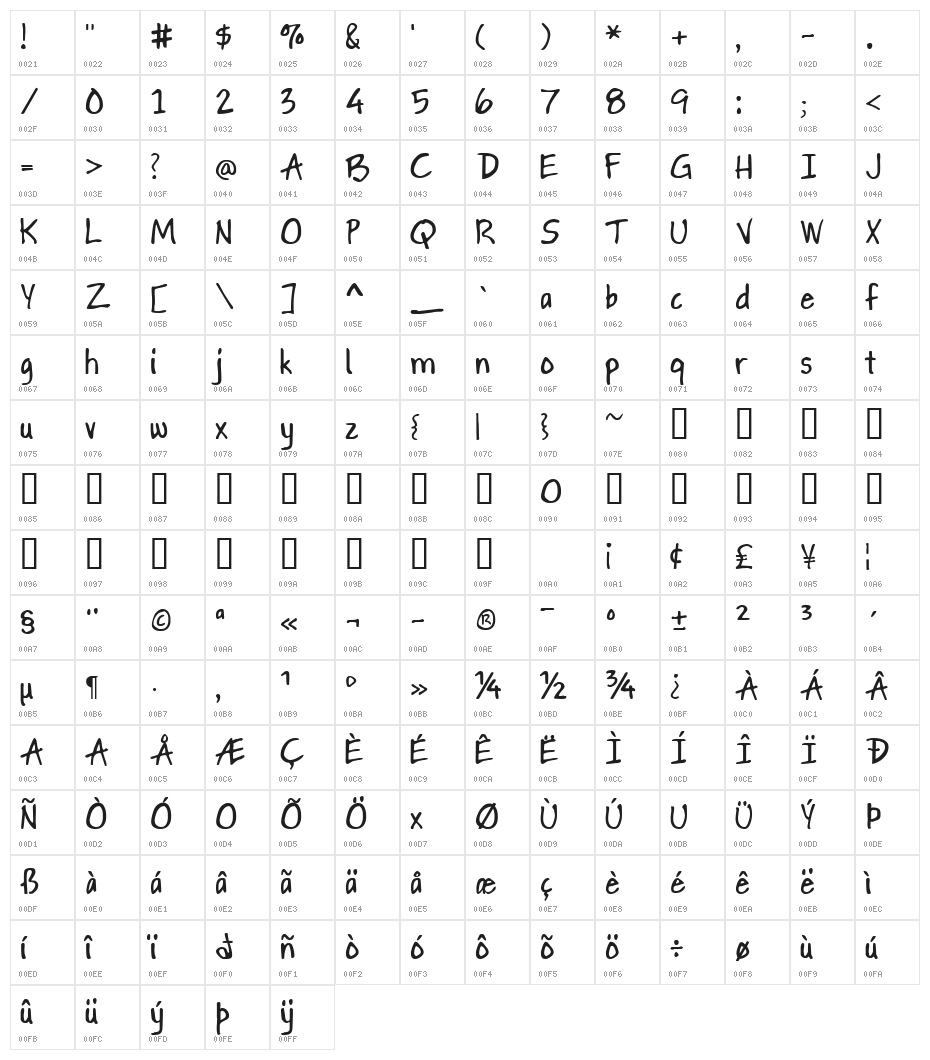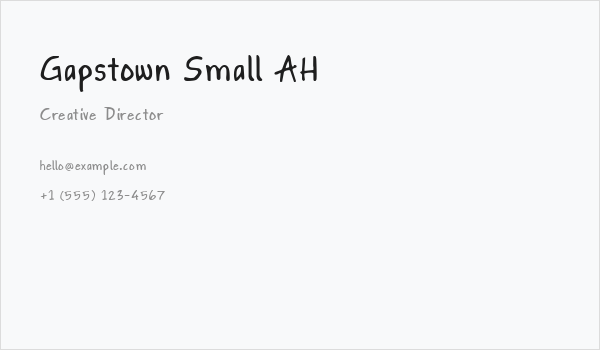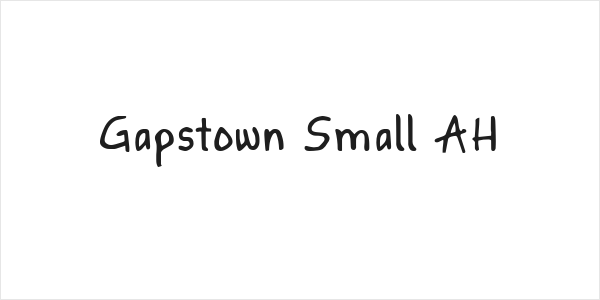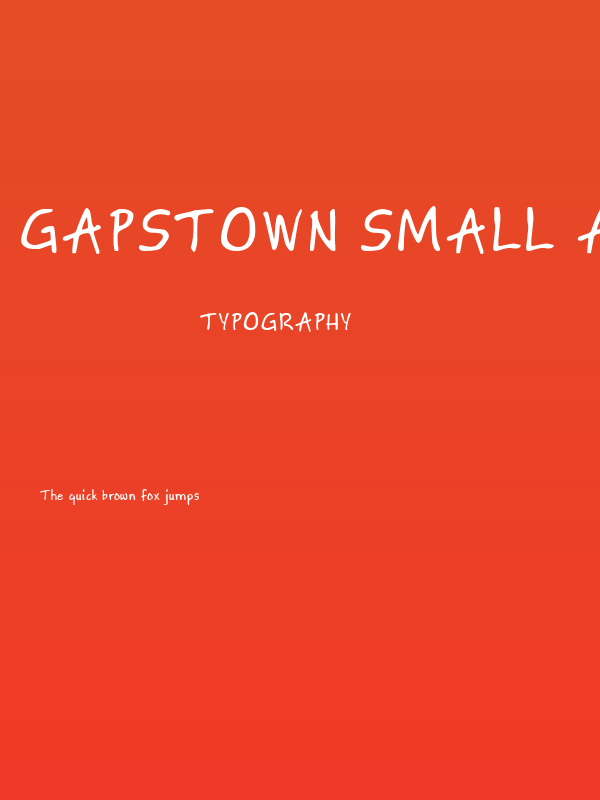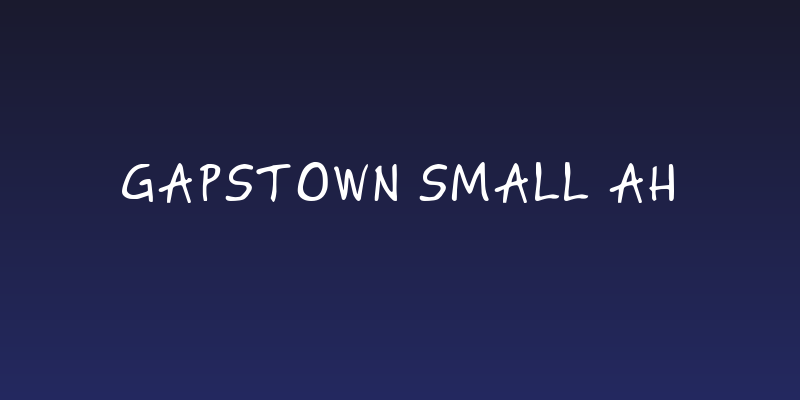
Gapstown Small AH Font
Gapstown Small AH Description
This playful and casual font features a handwritten style with a friendly and approachable appearance. The characters are slightly irregular, giving it a natural and organic feel. The uppercase letters are bold and confident, while the lowercase letters maintain a consistent flow with rounded edges. Numbers and special characters are designed to match the overall style, ensuring a cohesive look. The font's informal nature makes it suitable for projects that require a personal touch, such as invitations, greeting cards, and children's books.
| Use Case | Headlines, Informal text, Branding |
| Proposed Projects | Ideal for invitations, greeting cards, children's books, and casual branding. |